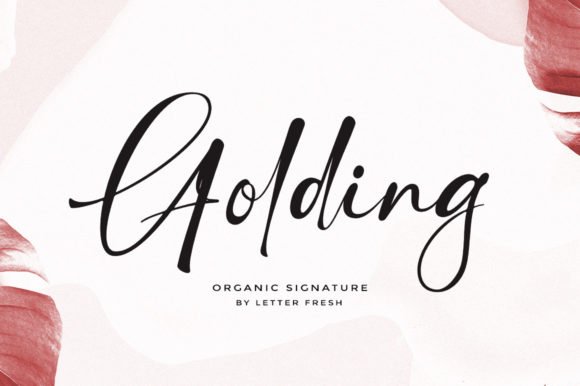
Introduction to Golding Signature Font
Golding Signature is a laid-back script font, featuring versatile characters that seem to dance along the baseline.